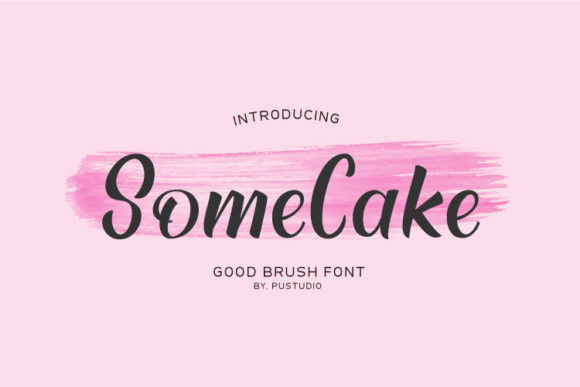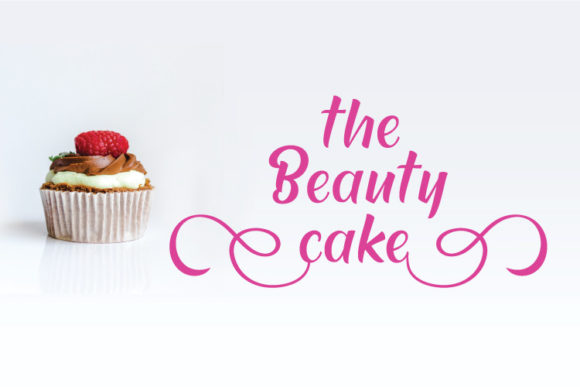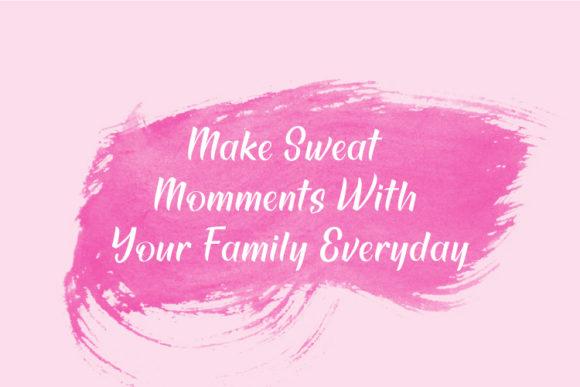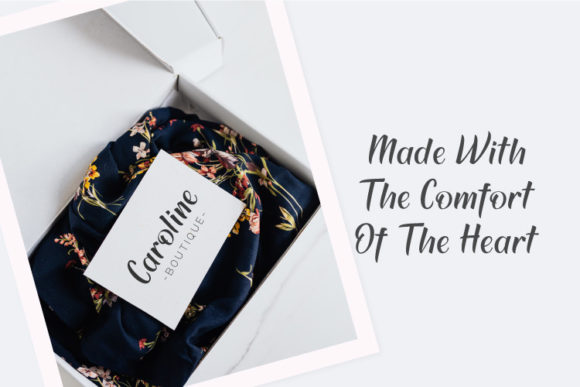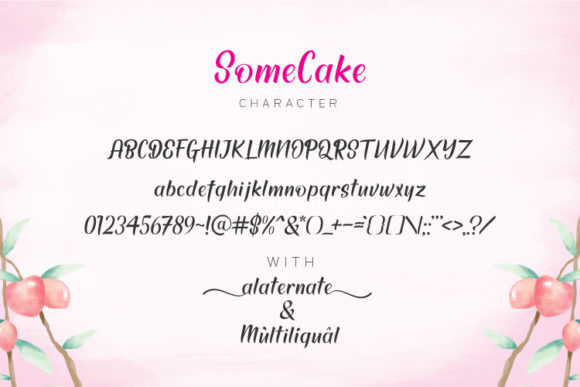
Some Cake Font
“Some Cake” is a stunning paint-brushed handwritten font that adds a touch of beauty to your creative projects. This versatile font is a wonderful asset for your font library, capable of enhancing any creation, regardless of the topic or theme. With its appealing style, “Some Cake” stands out as a valuable tool to elevate the visual appeal of your designs.
Whether you’re working on invitations, posters, social media graphics, or any other project, “Some Cake” contributes a gorgeous and handwritten charm that captures attention. Its paint-brushed strokes bring a unique texture, making your creations visually engaging and distinctive.
The PUA encoding of “Some Cake” provides convenient access to all glyphs and swashes, making it easy for you to explore and integrate various stylistic elements into your designs. This feature enhances the font’s flexibility, allowing you to customize and personalize your projects effortlessly.
“Some Cake” goes beyond being just a font; it’s a versatile and captivating typeface that can be the perfect choice for a wide range of applications. Whether you’re designing for a cheerful celebration or a more subdued theme, this font adapts beautifully to your creative vision.
In summary, “Some Cake” is a gorgeous and versatile paint-brushed handwritten font that brings a unique charm to your designs. Its PUA encoding ensures accessibility to a rich set of characters, giving you the freedom to create customized and visually stunning compositions. Add the delightful touch of “Some Cake” to your creations, and witness how it enhances the overall beauty of your design projects.